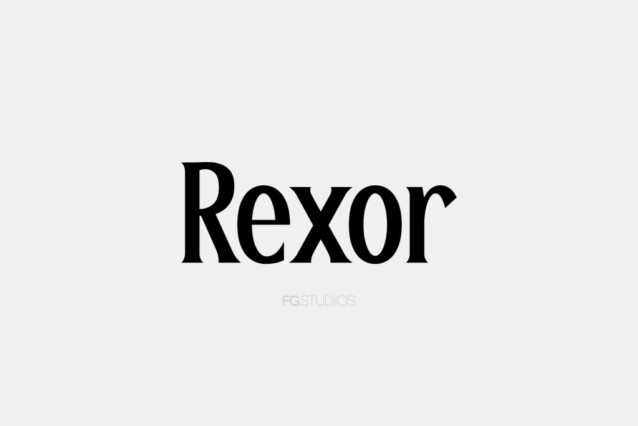
Rexor Font
Rexor Font is a high-contrast typography inspired by transitional and contemporary typography. Rexor excels in display settings such as headlines, titles, branding projects, Logo design, packaging, magazine headings, advertising, short or long text.